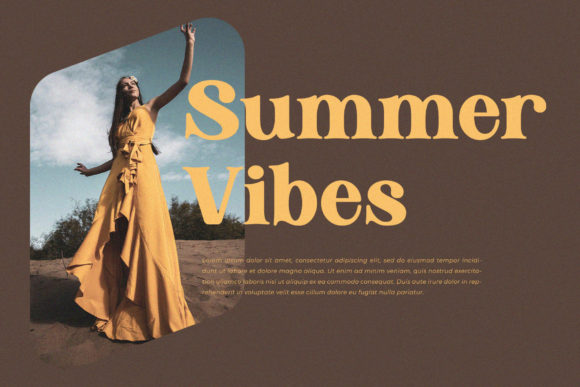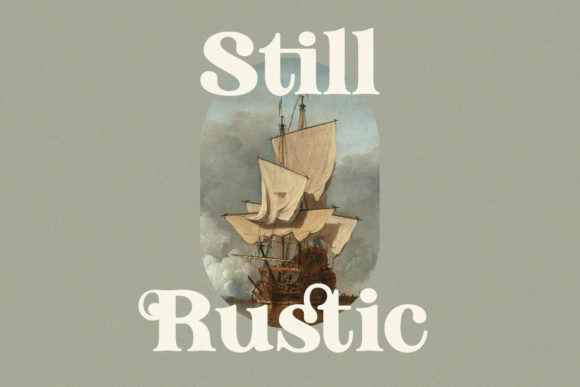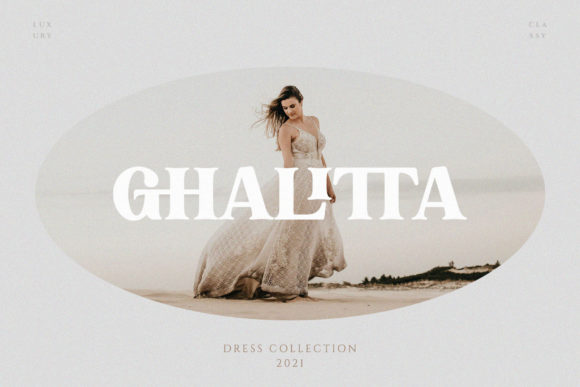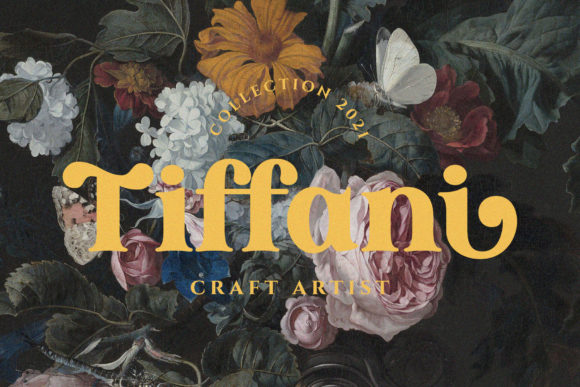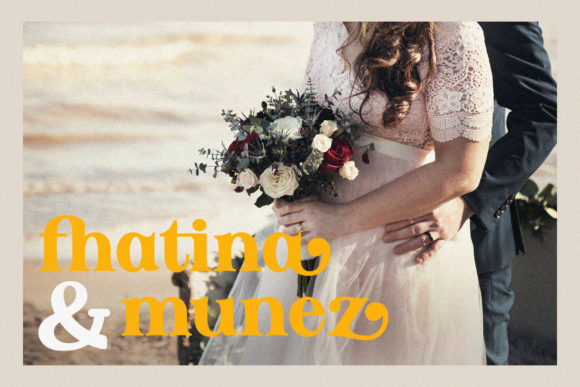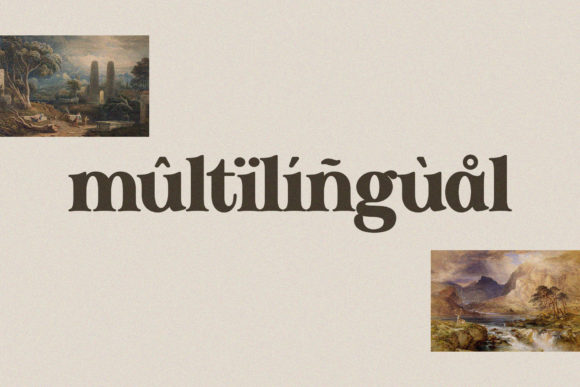
Introducing Angon Font: The Perfect Blend of Retro and Bold Styles
Are you a designer or crafter looking for a font that can add a touch of elegance and sophistication to your projects? Look no further than Angon Font, a stylish serif font that is both retro and bold. In this article, we’ll explore the features and benefits of Angon Font, and why it’s the perfect choice for a wide range of design projects.
What is Angon Font?
Angon Font is a beautifully crafted serif font that combines the classic look of traditional typography with a bold and modern twist. Its unique design makes it perfect for a variety of applications, from logos and branding projects to magazines, social media posts, and more. Whether you’re looking to create a vintage-inspired design or a modern and edgy look, Angon Font is the perfect choice.
Key Features of Angon Font
So, what makes Angon Font so special? Here are just a few of its key features:
- Retro and bold style: Angon Font has a unique blend of retro and bold styles that makes it stand out from other fonts.
- PUA encoded: Angon Font is PUA (Private Use Area) encoded, which means you can access all of the glyphs and swashes with ease.
- Wide range of applications: Angon Font works great for logos, magazines, social media posts, branding projects, business cards, banners, and more.
Benefits of Using Angon Font
So, why should you choose Angon Font for your design projects? Here are just a few benefits:
- Adds elegance and sophistication: Angon Font can add a touch of elegance and sophistication to any design project.
- Versatile: Angon Font can be used for a wide range of applications, from logos and branding projects to magazines and social media posts.
- Unique and eye-catching: Angon Font has a unique and eye-catching design that can help your design projects stand out from the crowd.
- Easy to read: Despite its bold style, Angon Font is easy to read, making it perfect for body text and headlines.
Tips and Tricks for Getting the Most Out of Angon Font
Here are a few tips and tricks for getting the most out of Angon Font:
- Experiment with different sizes and colors: Angon Font looks great in a variety of sizes and colors, so don’t be afraid to experiment.
- Pair with other fonts: Angon Font pairs well with other fonts, so try combining it with a sans-serif font for a unique and eye-catching look.
- Use the swashes and glyphs: Angon Font’s PUA encoding means you can access a wide range of swashes and glyphs, so don’t be afraid to get creative.
In conclusion, Angon Font is a stylish serif font that is both retro and bold. Its unique design makes it perfect for a wide range of design projects, from logos and branding projects to magazines and social media posts. With its PUA encoding and easy-to-use design, Angon Font is the perfect choice for designers and crafters looking to add a touch of elegance and sophistication to their projects.